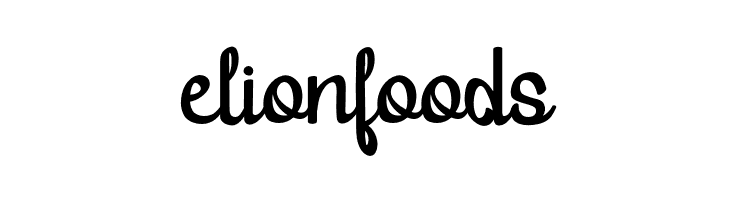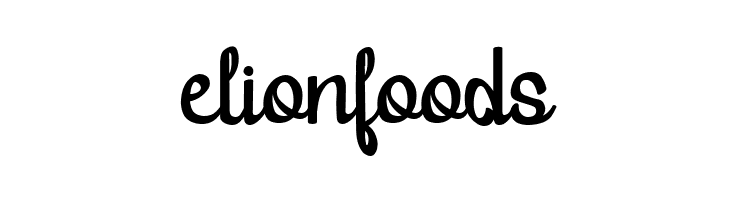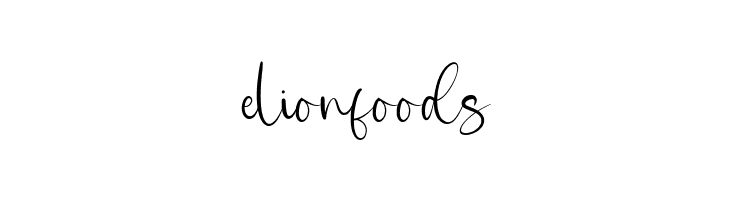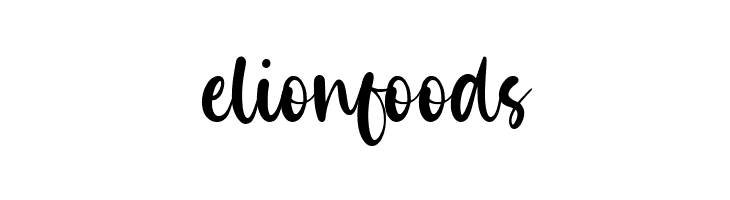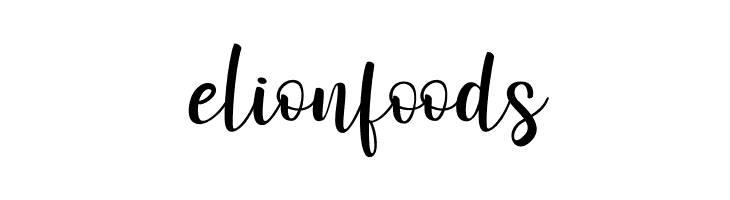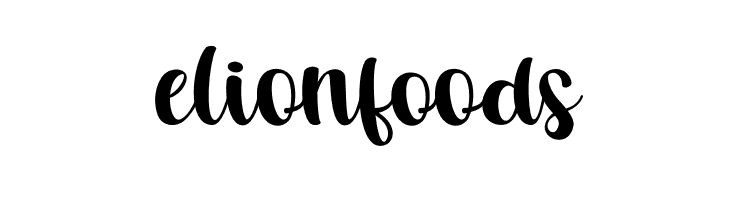
A playful, hand-drawn script font with smooth, fluid strokes and moderate contrast.
A playful, handwritten script font with a whimsical style.
A playful and whimsical script font with smooth, flowing curves.
A fluid and elegant handwritten style with dynamic letterforms.
A lively, expressive handwritten font with fluid strokes and playful curves.
A bold, playful script font with flowing, energetic characters.
A fluid, cursive script font with a natural handwriting style.
A bold, cursive font with elegant loops and swashes.
A bold, expressive script font with flowing, cursive letters.